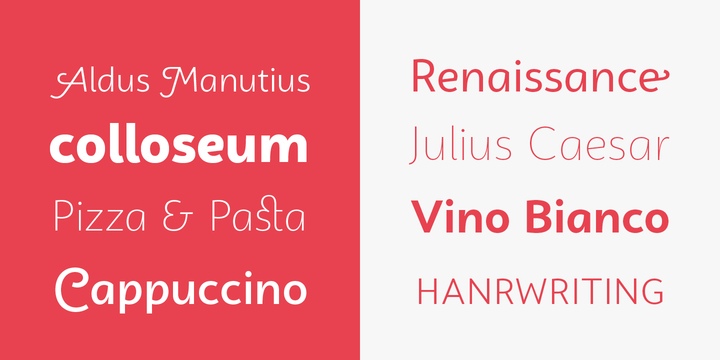
Campuni Font
Campuni Font is perfect for summer camp branding, outdoor education programs, youth adventure organizations, family recreation center signage, camping equipment packaging, scout troop materials, nature education graphics, outdoor festival posters, wilderness therapy program communications, and community camping ground advertising. This friendly typeface excels in applications where outdoor adventure, community spirit, and wholesome family fun are fundamental brand characteristics.
What makes Campuni Font exciting is its warm embodiment of campfire camaraderie through approachable letterforms that capture the inclusive spirit and joyful memories created around outdoor adventures and shared experiences in nature. The font features friendly character construction with organic curves and welcoming proportions that immediately convey safety, fun, and the kind of authentic community building that happens when people disconnect from technology and reconnect with nature and each other. Its trustworthy personality makes it perfect for organizations that create lasting memories through outdoor adventures and character-building experiences.
The Campuni Font family typically includes Regular and Bold weights, often accompanied by playful alternates with enhanced outdoor styling and natural ligatures that reflect the organic flow of outdoor activities and community storytelling. Many versions include camping-themed symbols including tents, campfires, and nature elements, plus complementary dingbats that enhance the outdoor adventure aesthetic. Some collections include hand-drawn variations and rustic effects that amplify the authentic camping atmosphere for maximum outdoor appeal.
Whether you're developing brand identities for outdoor education organizations, creating materials for family camping experiences, or designing content that celebrates community building through nature adventures, Campuni Font Free Download provides the authentic outdoor community character that resonates with families seeking meaningful connections and character-building experiences in natural settings. Its welcoming presence makes it ideal for organizations focused on creating safe, inclusive outdoor experiences that build confidence and lasting friendships. The font's ability to convey both adventure excitement and trustworthy safety makes it particularly valuable for summer camps, outdoor education programs, and family recreation services seeking to attract parents who want their children to experience the life-changing benefits of outdoor adventure and community building.